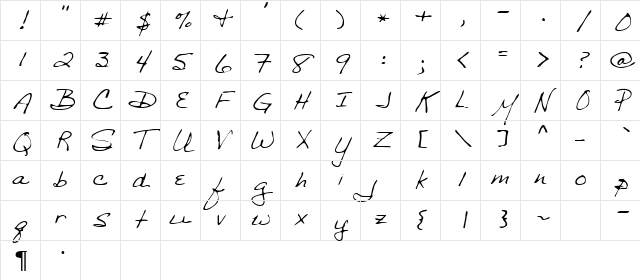
Sharon Regular
Sharon Family
Complete Sharon Regular glyph index. Displaying only characters natively supported by Sharon Regular font.
Design Context for Sharon
Sharon is a composed and adaptable typeface that performs quietly and consistently across a wide range of design contexts.